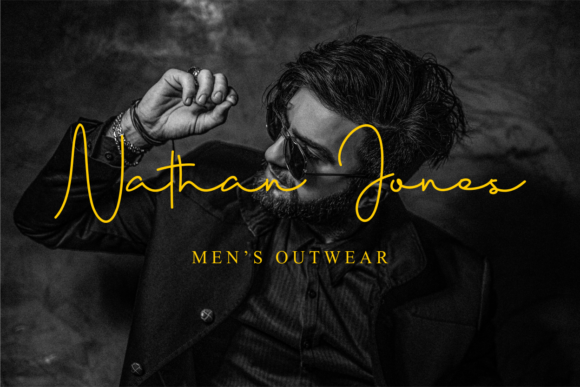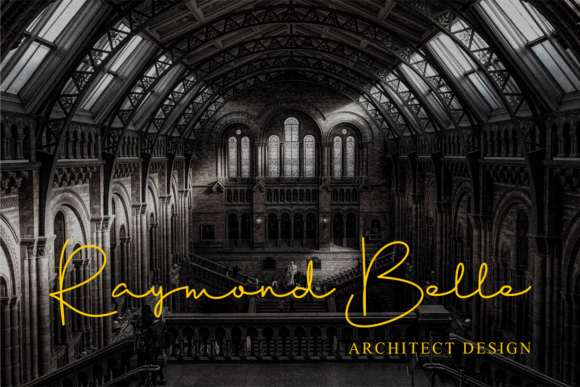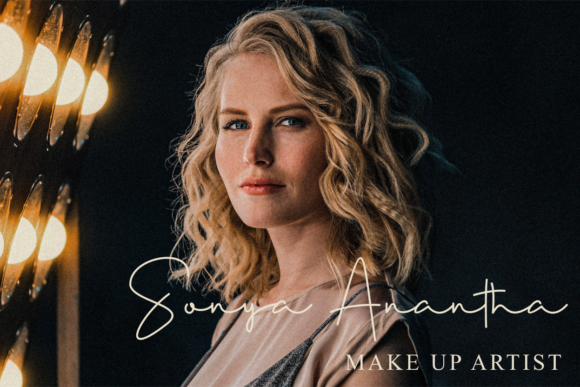
Gellato Rush Font
About Gellato Rush Font
Gellato Rush is a charming and light handwritten font with a stylish feel. It will add a modern vibe to any design project.